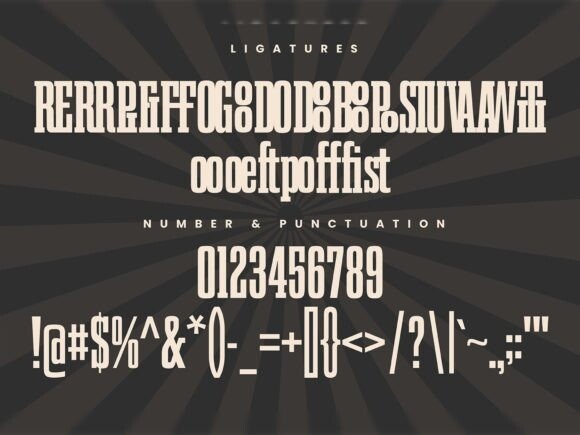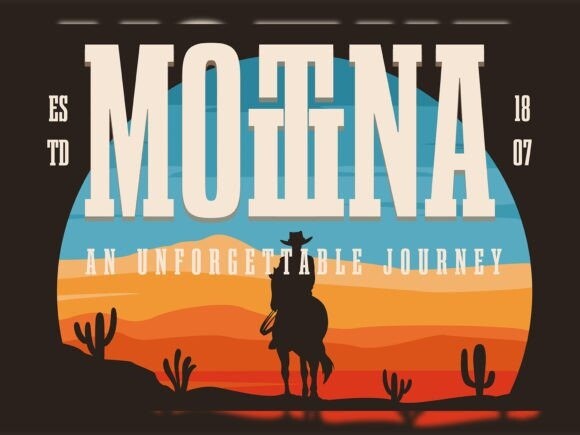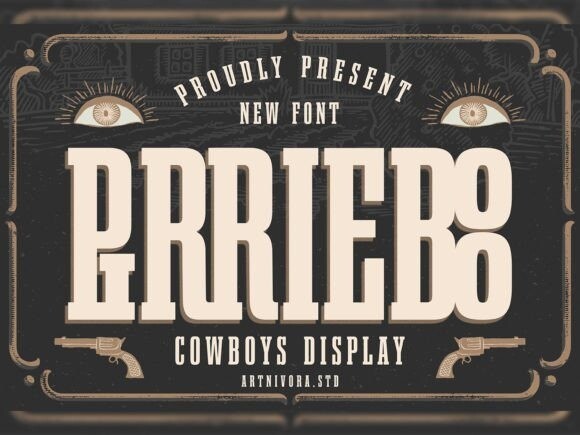
Pirrieboo Font
Pirrieboo Font is a bold cowboy display font that brings a rugged and adventurous vibe to your designs. With a distinctive Western flair, this font is perfect for creating eye-catching titles and headlines with a touch of cowboy charm. Embrace the wild West spirit and add a hint of frontier ruggedness to your projects, making Pirrieboo an ideal choice for anything from cowboy-themed events to bold graphic designs. Saddle up and let Pirrieboo bring a dash of frontier-style to your creative endeavors.